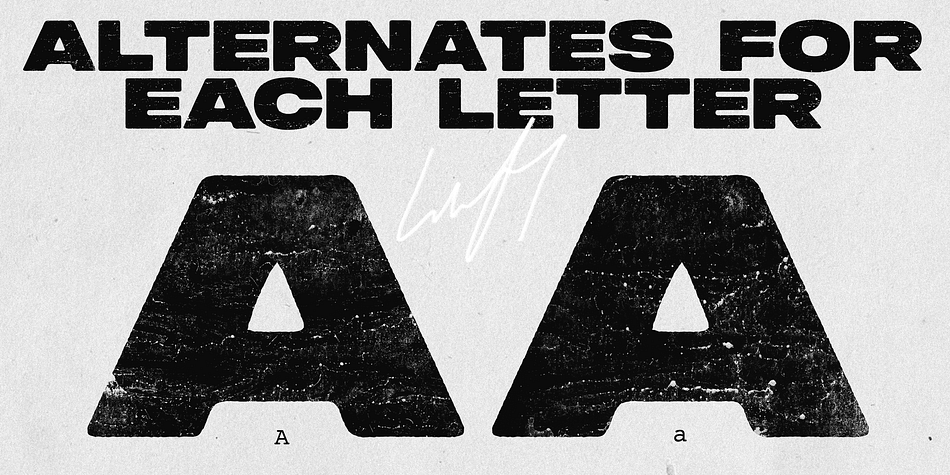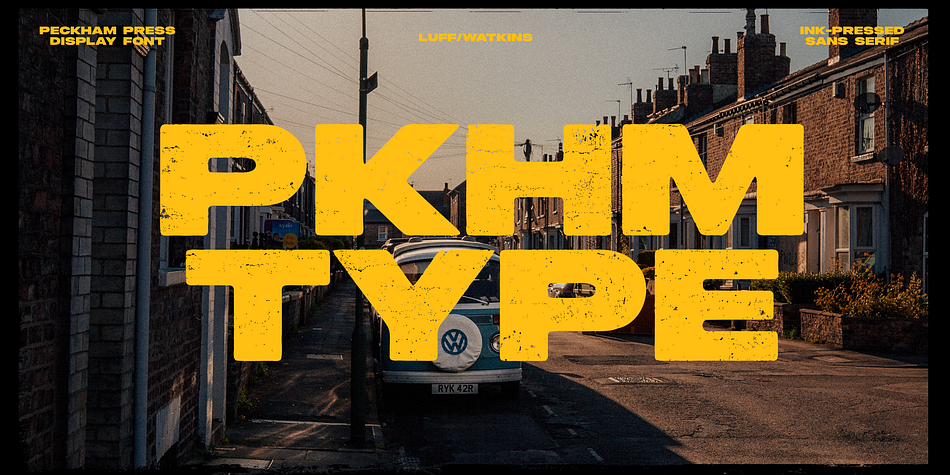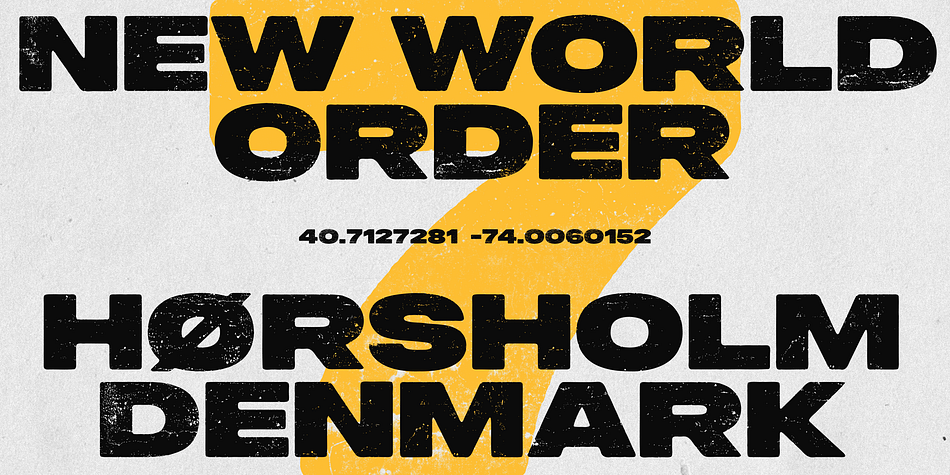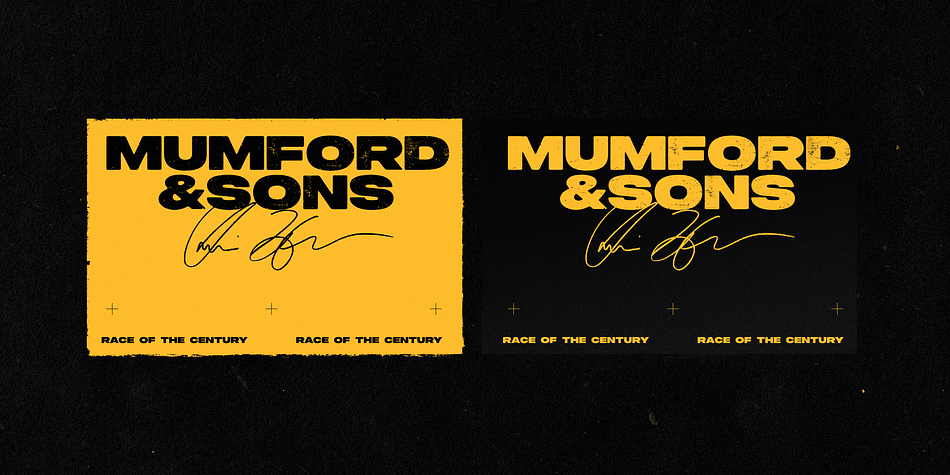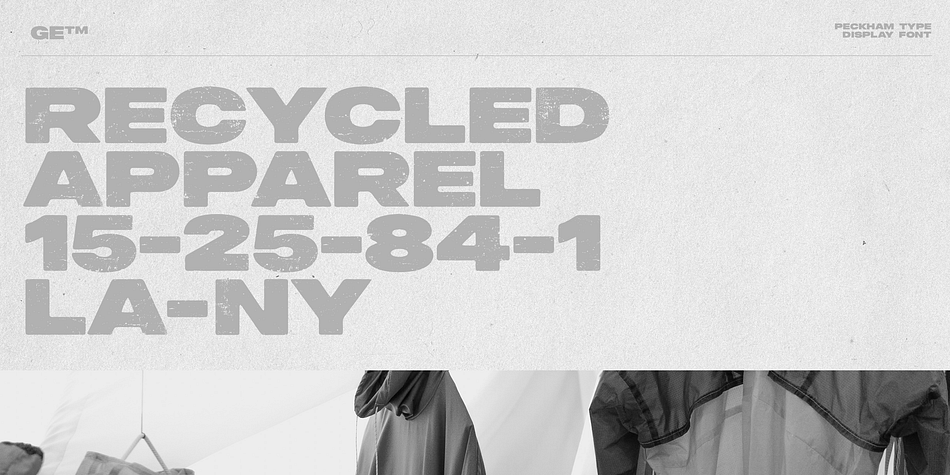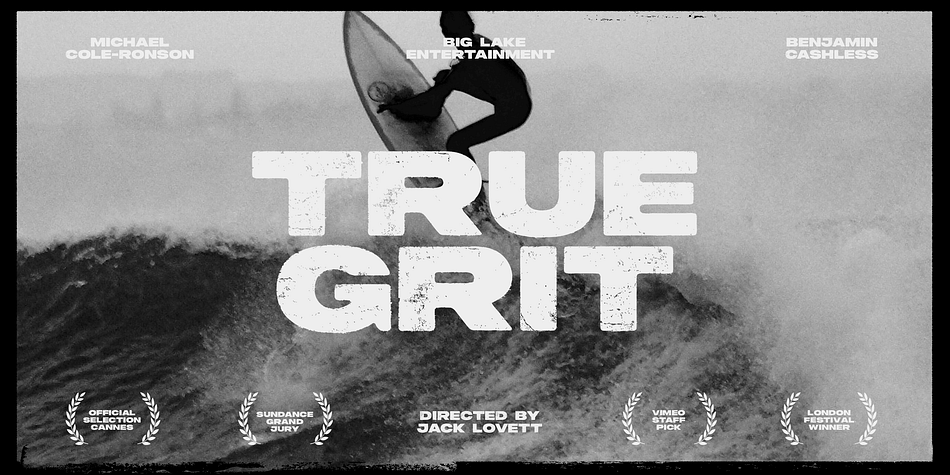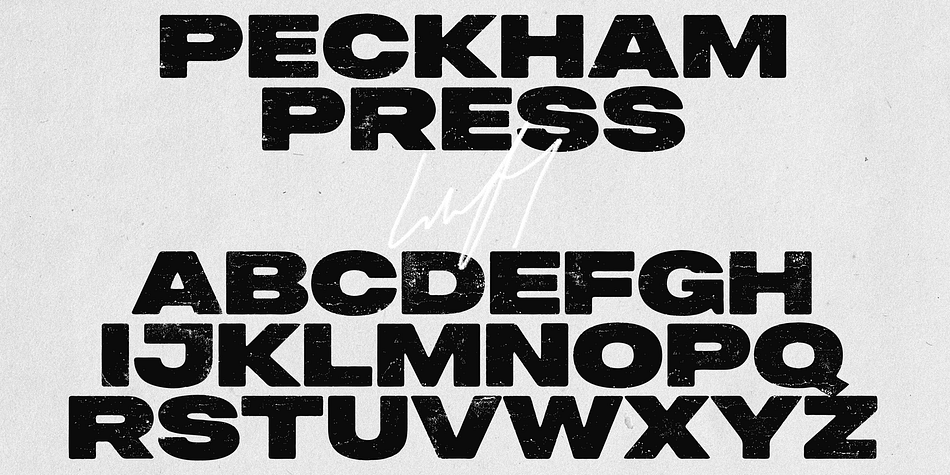
PECKHAM PRESS
Designed by Ellen Luff and Tom Watkins, Peckham Press is a display sans font published by Ellen Luff.
Peckham Press is a bold hand-pressed typefamily, with a raw aesthetic and solid industrial style. The font brings a spirit of street culture, with its defiant shapes, rough edges and unadulterated imperfections.
It works best in strong design, and situations that require an authentic voice. This font is handmade and includes full original texture with density variants and original nicks and grit, with access options to suit different needs.
Foundry Ellen Luff
Designers Ellen Luff, Tom Anders Watkins